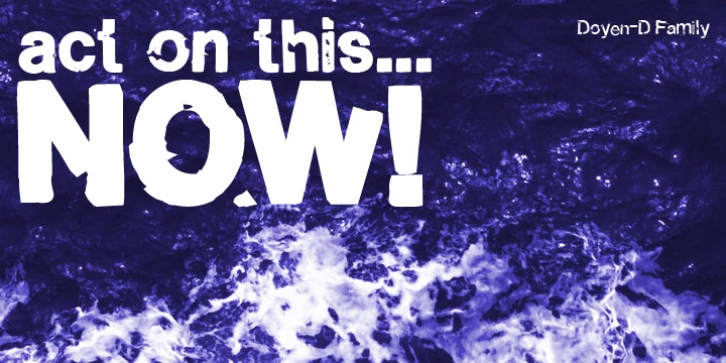
Doyen-D was published by Substance. Doyen-D contains 4 styles and family package options.
A distorted, broken & cracked typeface.
Doyen-D.ScreenRegular uses the same letter forms as the rest of the Doyen-D family, however the letters have gone through a halftone screen print process, resulting in even further distortion of the typeface.